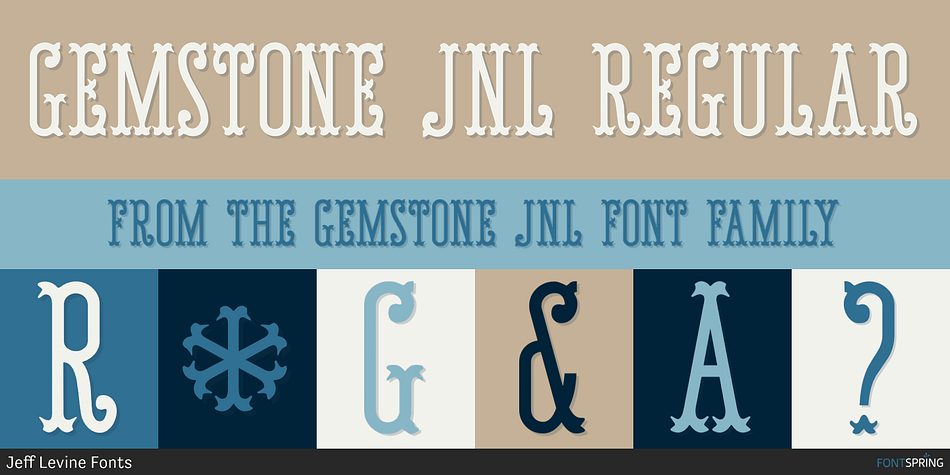
GEMSTONE JNL REGULAR
Designed by Jeff Levine, Gemstone JNL is a display and western font published by Jeff Levine Fonts.
A late-19th Century songbook entitled "Gems of Scotland: A Beautiful Collection of Scottish Songs" had the words "Gems of Scotland" hand lettered in an ornate, condensed type style now reproduced digitally as Gemstone JNL.
A late-19th Century songbook entitled “Gems of Scotland: A Beautiful Collection of Scottish Songs” had the words “Gems of Scotland” hand lettered in an ornate, condensed type style now reproduced digitally as Gemstone JNL.